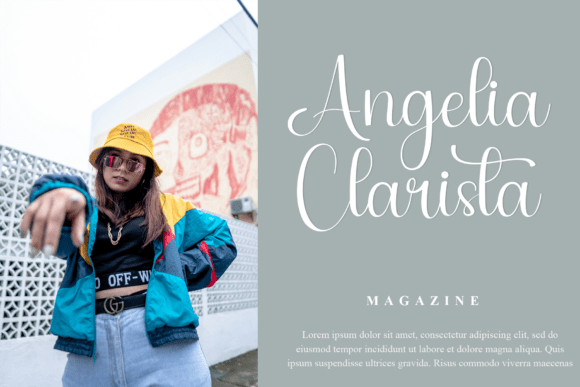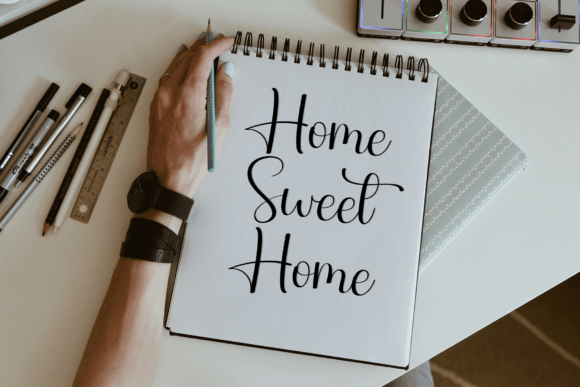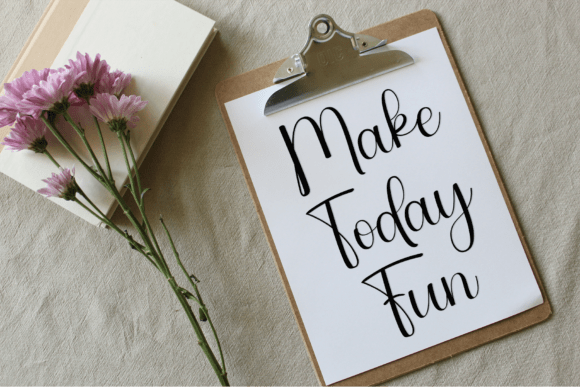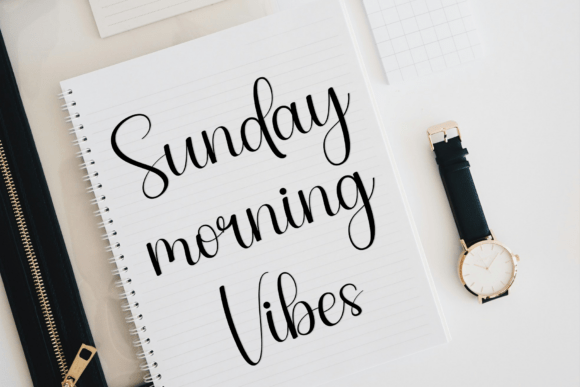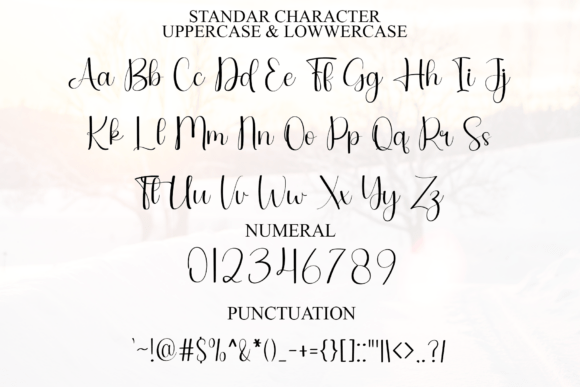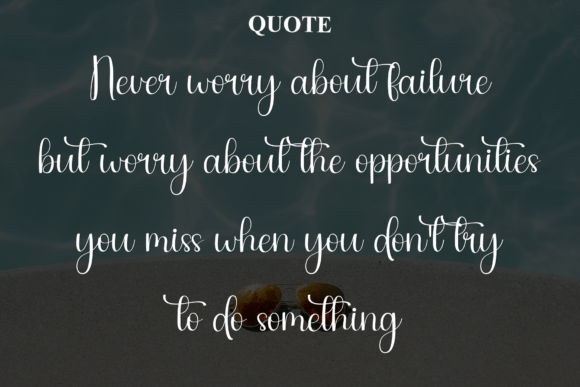
Biscuit Font: The Timeless Handwritten Font for Stunning Designs
Are you a designer or crafter looking for a font that can add a touch of elegance and sophistication to your creations? Look no further than the Biscuit Font! This lovely and timeless handwritten font is perfect for creating eye-catching logos, branding, and quotes that will leave a lasting impression on your audience.
What Makes Biscuit Font So Special?
Biscuit Font is a unique and beautiful handwritten font that is sure to make your design come alive! Every letter has a distinct and lovely touch that sets it apart from other fonts. The font’s elegant and cursive style makes it perfect for a wide range of design projects, from logos and branding to quotes and social media graphics.
Whether you’re a professional designer or a crafter looking to add a personal touch to your creations, Biscuit Font is the perfect choice. The font’s versatility and elegance make it suitable for a wide range of design projects, including:
- Logos and branding: Create a lasting impression with a custom logo that showcases your brand’s personality and style.
- Quotes and social media graphics: Add a touch of elegance and sophistication to your quotes and social media graphics.
- Stationery and cards: Create beautiful and unique stationery and cards that will make your recipients feel special.
- Web design: Use Biscuit Font to add a touch of elegance and sophistication to your website’s design.
Why Choose Biscuit Font?
So, why choose Biscuit Font over other fonts? Here are just a few reasons why Biscuit Font stands out:
- Unique and beautiful: Every letter has a distinct and lovely touch that sets it apart from other fonts.
- Timeless: Biscuit Font is a timeless font that will never go out of style.
- Versatile: The font’s elegance and cursive style make it perfect for a wide range of design projects.
- Easy to read: Despite its elegant style, Biscuit Font is easy to read and understand.
Tips for Using Biscuit Font
Here are a few tips for using Biscuit Font to get the most out of this beautiful font:
- Use it sparingly: While Biscuit Font is beautiful, it can be overwhelming if used too much. Use it sparingly to add a touch of elegance and sophistication to your design.
- Pair it with other fonts: Biscuit Font pairs well with other fonts, such as sans-serif fonts. Experiment with different font combinations to find the perfect look for your design.
- Adjust the size and color: Experiment with different sizes and colors to find the perfect look for your design.
In conclusion, Biscuit Font is a lovely and timeless handwritten font that is perfect for creating eye-catching logos, branding, and quotes. Its unique and beautiful touch makes it a standout font that will make your design come alive! Whether you’re a designer or crafter, Biscuit Font is a great choice for adding a touch of elegance and sophistication to your creations.